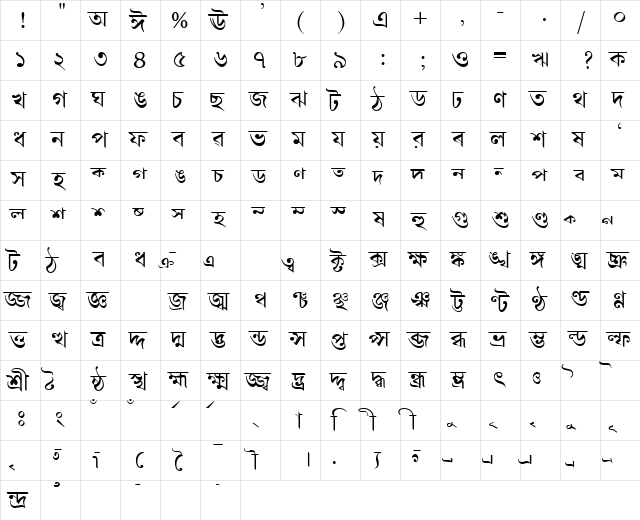
AkrutiBngBharati Normal
Design Context for AkrutiBngBharati Typeface
AkrutiBngBharati is a composed and adaptable typeface that performs quietly and consistently across a wide range of design contexts.